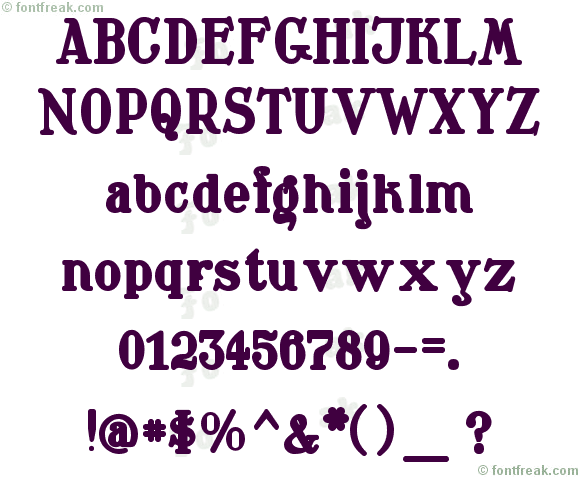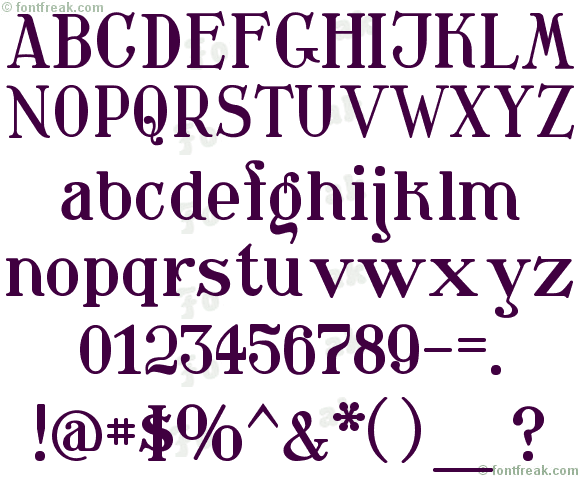
Waschkueche
Waschkueche Grob Ultra
The Waschkueche font, designed by Peter Wiegel, is a striking display typeface that embodies a unique blend of modernity and playfulness. This freeware font, licensed under Creative Commons Attribution 3.0 Germany, stands out with its bold strokes and clean lines, making it an excellent choice for various design projects. The typeface exhibits a consistent stroke weight, providing clarity in both large and small sizes. Its balanced spacing enhances readability while maintaining an inviting aesthetic, perfect for capturing attention.
With its contemporary yet whimsical flair, the Waschkueche font is ideal for a range of applications. It works beautifully for wedding invitations, where its elegant yet casual appearance can convey a sense of warmth and celebration. Additionally, this font is well-suited for movie posters, allowing filmmakers to showcase their titles with a modern touch that resonates with audiences. Restaurant menus can benefit from the Waschkueche font's charm, drawing patrons in with a visually appealing design that reflects the culinary experience. Furthermore, graphic designers and content creators can leverage this font in social media graphics, ensuring their posts stand out in a crowded digital landscape.
Targeted toward graphic designers, small business owners, and content creators, the Waschkueche font offers versatility and character. Its free availability encourages experimentation, making it accessible for various projects without compromising quality.
What truly sets the Waschkueche font apart is its distinctive personality, merging playful elements with professional appeal. This unique combination allows it to adapt to different contexts while maintaining a cohesive visual identity. For anyone looking to enhance their design toolkit, the Waschkueche font free download is an opportunity not to be missed.